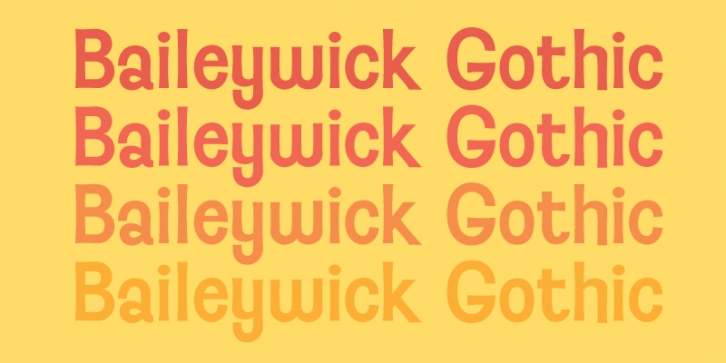
Baileywick Gothic is a Jukebox original sans serif font with an upbeat exuberance. The slightly modulated baseline and large x-height make it easy on the eyes.
Jukebox is the brainchild of Jason Walcott, longtime type designer. Jason designed his first typeface called “Holiday Times†in the fall of 2000, and that started a long and wonderful journey that lead to the Jukebox of today.
After designing five or six more fonts, Jason started selling his typefaces on MyFonts.com in summer of 2001. At that time, his foundry went under the name of “JAW Fontsâ€. Several of his type designs quickly became popular on MyFonts.com and the sales grew through late 2002.
In early March of 2003, Walcott received a phone call from the then up-and-coming Veer Inc. Veer was interested in carrying his font library which then consisted of about 50 faces. The deal with Veer blossomed into a whole new venture and JAW Fonts was closed down, retooled and relaunched as Jukebox in June of 2003. The exclusive product of Veer from 2003 to 2015, Jukebox became one of the industry standards in type libraries available. Jukebox fonts have been used on countless products and designs, films, books, television productions and more, by companies such as Disney, HGTV, The Food Network, Disney Theme Parks, Hershey’s, VistaPrint and many others. In 2011 Jason’s Eloquent font family was awarded a spot in the “Best of Typeface Design†in Communications Arts Magazine’s Typography Annual.
On March 31st of 2016, Veer closed its doors forever and curation of the Jukebox library returned to Jason, who is committed to making sure Jukebox will continue to provide the design world with high-quality, professional type.